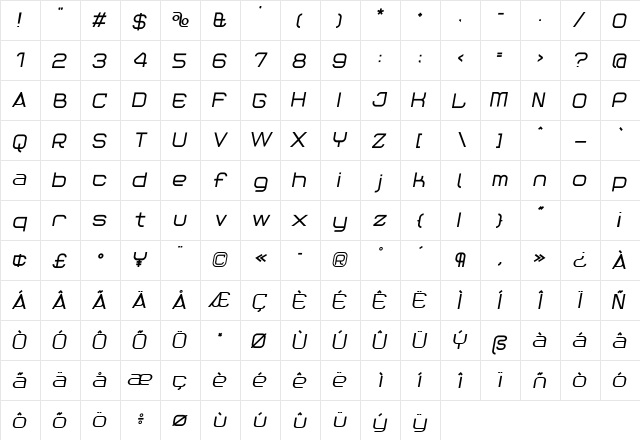
Reaction Regular Font Preview
Reaction Regular
Reaction Regular Font Details
Design Context for Reaction Typeface
Reaction takes a measured approach to typography — its balanced proportions and neutral character make it a reliable workhorse for both digital and print work.
Pro Tip: Use Reaction in both headline and body roles to test its range before committing to a single application.